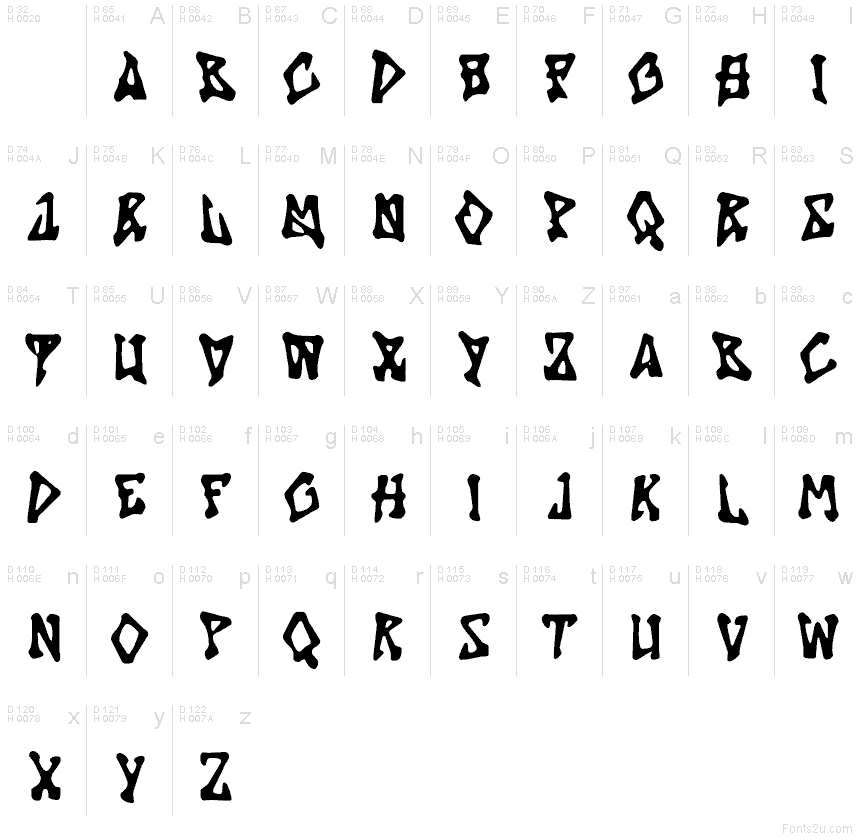
CS Dumber Drawn font by Craft Supply Co. is a free bold hand-drawn display font from the CS Dumber family. It stands out with lumpy, inky strokes and wobbling contours that feel scrawled with a fat marker, then left to slightly melt. The counters pinch and bulge in unexpected places, giving each word a jittery rhythm that reads loud, messy, and alive.
Using CS Dumber Drawn, headlines instantly gain attitude—think Halloween posters, skate stickers, zines, gig flyers, streetwear tags, and offbeat snack packaging. The irregular spacing pulls the eye across the line, which makes short phrases and punchy titles shine. Pair this free font with a clean grotesk for body copy, and keep it big to let those blobby edges breathe.